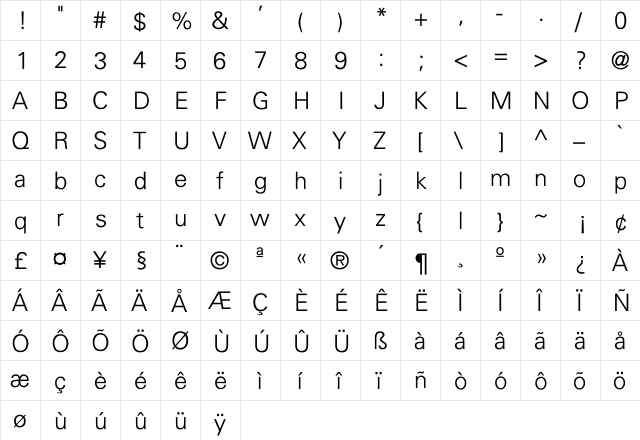
Univers-Light-Normal Regular Font Preview
Univers-Light-Normal Regular
Design Context for Univers-Light-Normal Typeface
Univers-Light-Normal is a composed and adaptable typeface that performs quietly and consistently across a wide range of design contexts. The delicate stroke weight brings airiness and refinement to layouts.